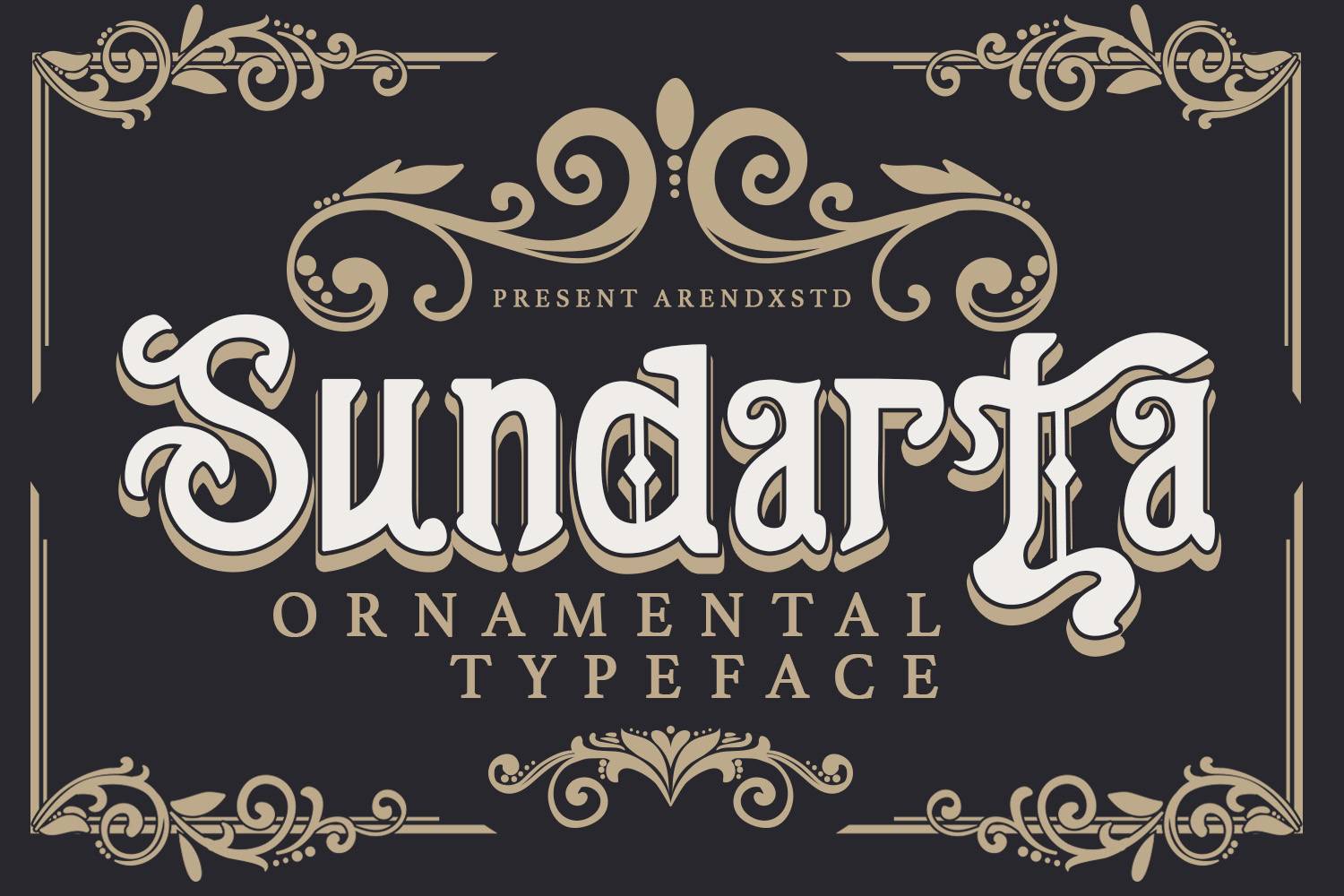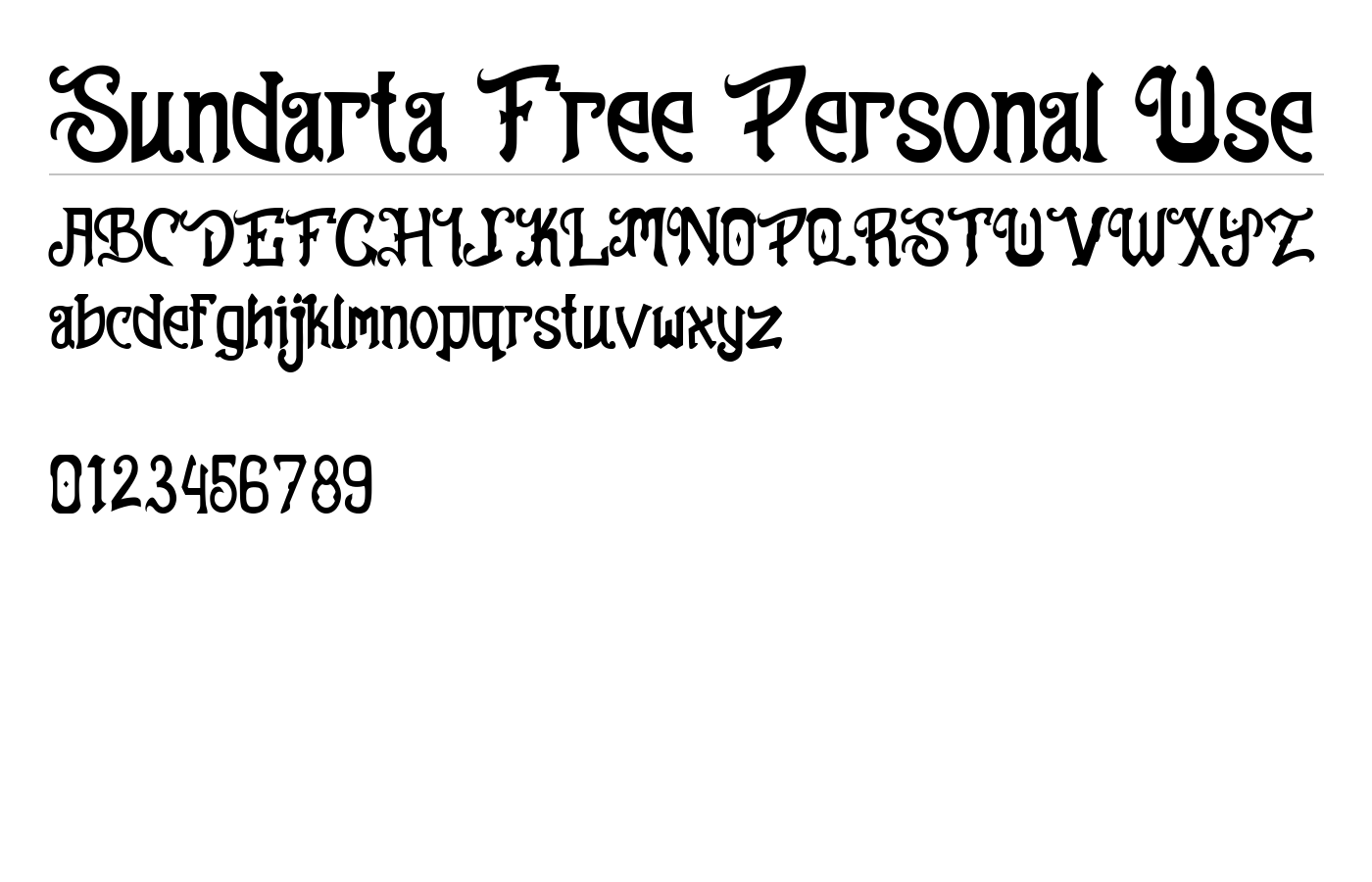
Sundarta is a decorative serif font with a whimsical, vintage feel, characterized by its tall, narrow letterforms and intricate, playful serifs that curl and twist uniquely on many characters. The font combines medium contrast strokes with a slightly condensed width, making it ideal for eye-catching headlines, logos, and creative projects where a distinctive, artistic flair is desired. Its charming, somewhat quirky style suits brands and designs that want to evoke a sense of individuality and old-world charm.
| Font family | Sundarta Font |
| Release date | 2020-08-06 |
| Designer | arendxstudio |